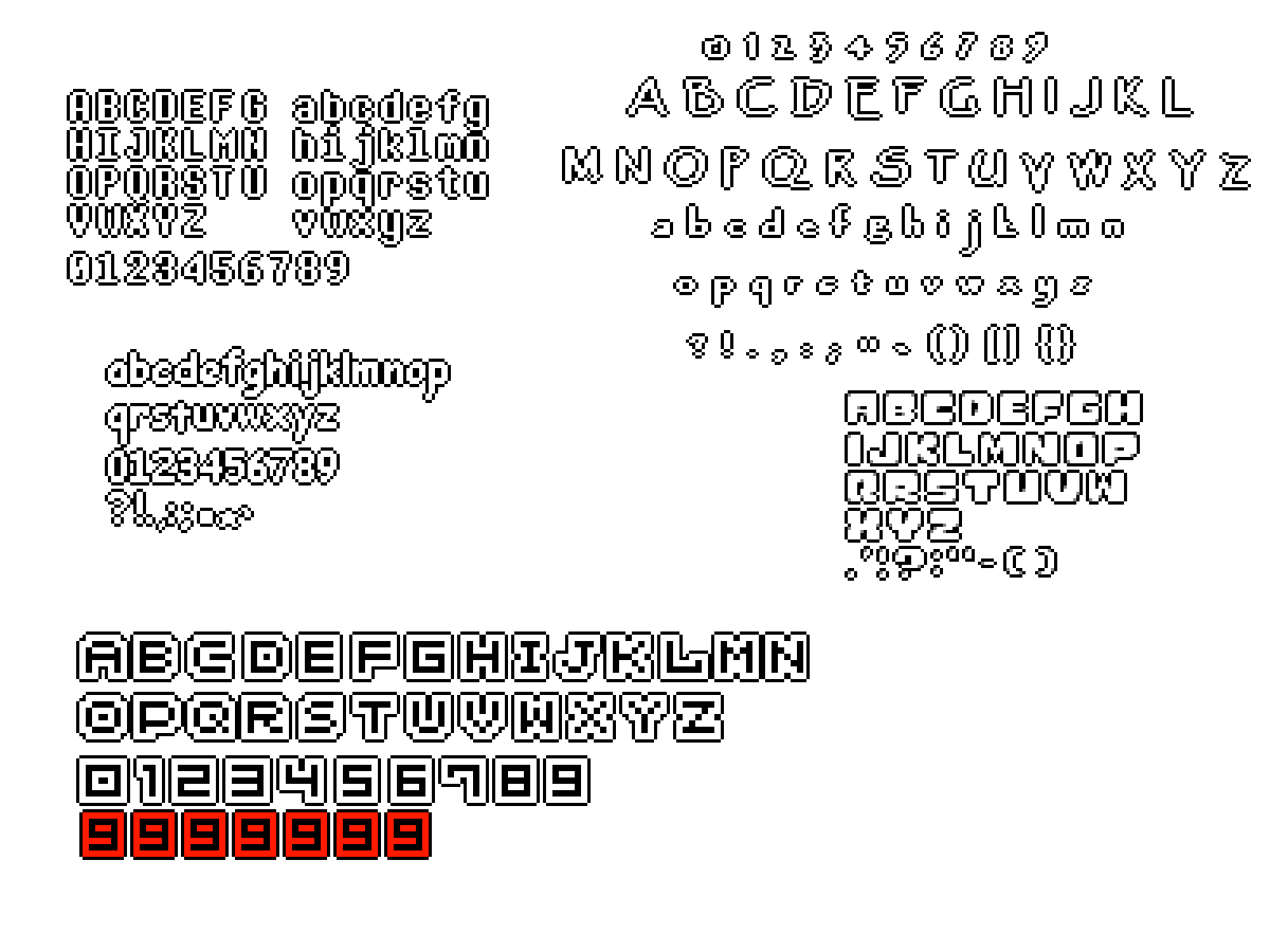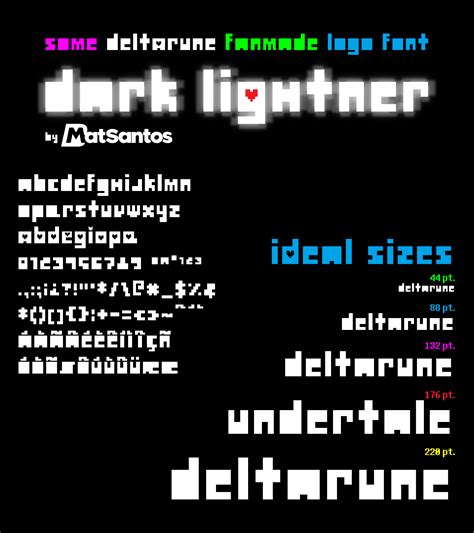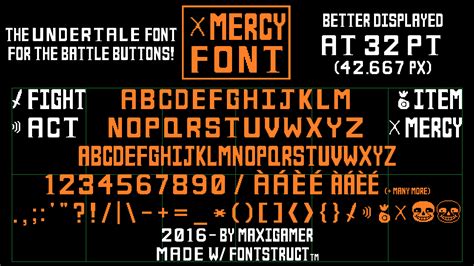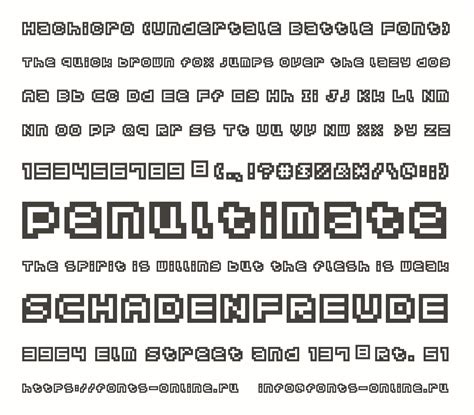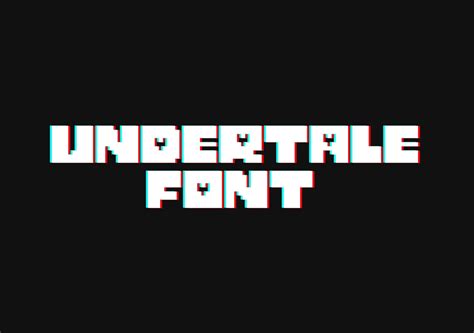
Looking for the Undertale font? Discover the official Determination typeface and similar pixel-art styles to give your gaming projects that iconic retro look.